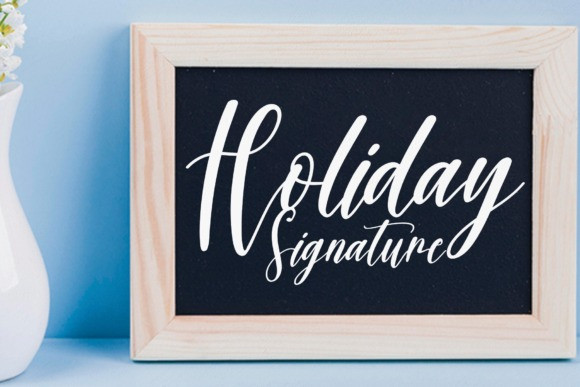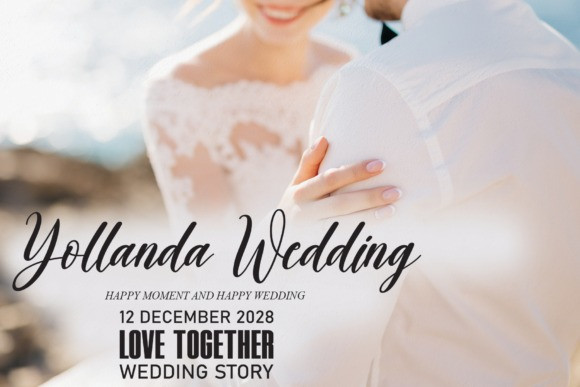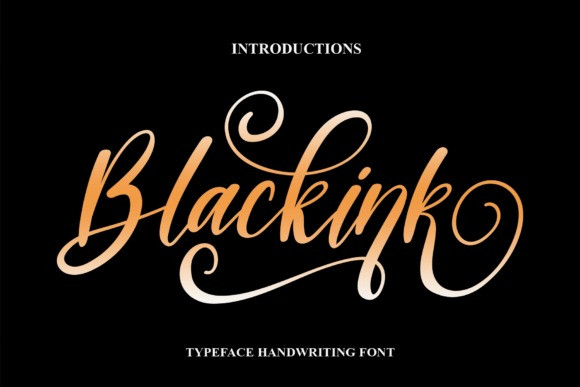
Blackink Font
Blackink Font is a swirly and sophisticated handwritten font, perfect for your most creative designs! Use it for wall displays, wedding invitations, social media post logos, advertisements, product packaging, product designs, labels, photography, watermarks, invitations, stationery, and other projects that need stylish typography.